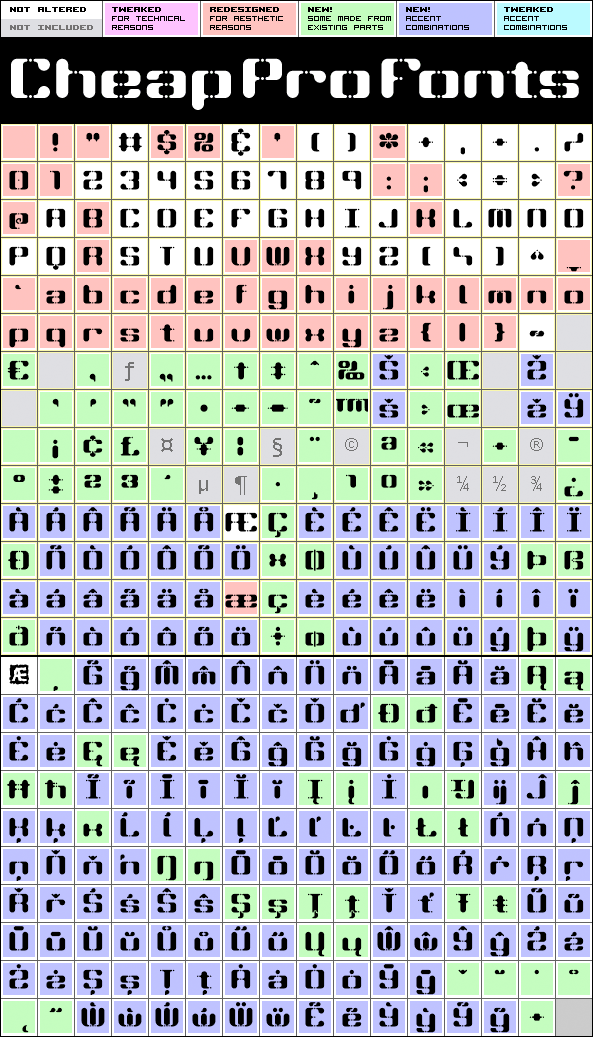
I just loved the design idea behind this font, but the original font had a lot of ugly artefacts - so I have completely redrawn ALL the letters, before expanding the character set. The lowercase have been redrawn with a higher x-height, making the font even more useable (with more "normal" word shapes ;)
Syndrome BRK Pro is a professionally reworked font that contains an extended character set for setting of text in 65 languages requiring more than the basic A-Z!